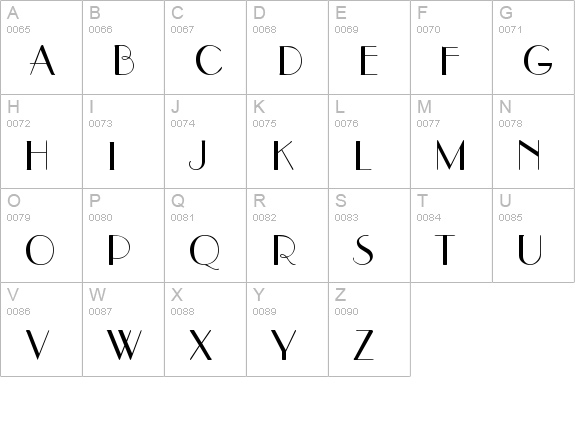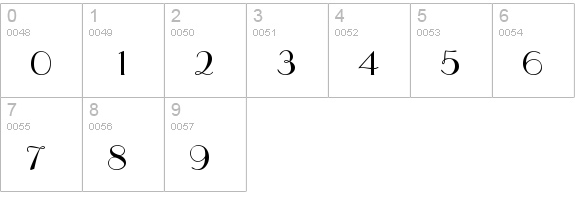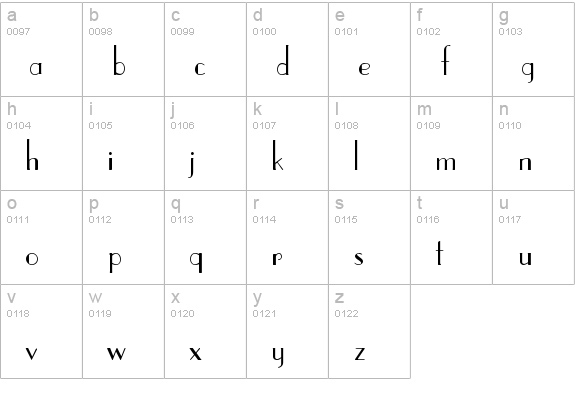
WeekendInParis Regular Font Details
WeekendInParis Regular is the standard, neutral variant in the WeekendInParis typeface family \xE2\x80\x94 well suited to general body text, paragraphs, and standard typographic work.
WeekendInParis Regular font is a versatile typeface that exudes elegance and sophistication. With its clean and crisp lines, this font adds a touch of refinement to any design project. Whether it's for a logo, website, or print materials, WeekendInParis Regular is the perfect choice to convey a sense of timeless beauty. This font's smooth curves and balanced letterforms make it easy to read, ensuring that your message is easily understood. Its moderate weight strikes a harmonious balance between boldness and subtlety, making it suitable for various applications. One of the best things about WeekendInParis Regular font is that it is freely available to download at FontsMarket.com. This means you can access this stunning typeface without any cost. It's perfect for designers, creatives, and enthusiasts who are looking for a high-quality font that won't break the bank. With WeekendInParis Regular font, you can elevate your designs to new heights. Its versatility allows it to be used in a wide range of projects, from branding and packaging to invitations and social media graphics. This font will surely make your designs stand out and leave a lasting impression on your audience. Don't miss out on the opportunity to enhance your design arsenal with WeekendInParis Regular font. Download it for free at FontsMarket.com and unlock a world of possibilities for your creative projects.